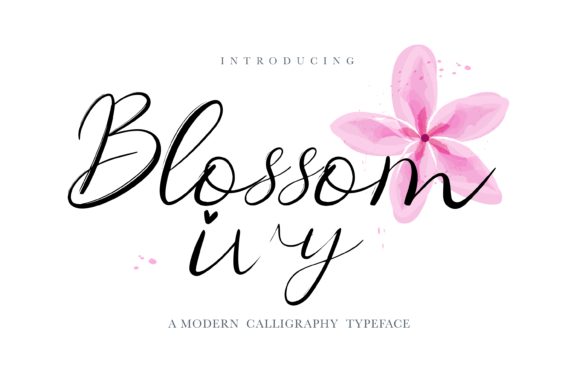
Introducing Blossom Ivy Font: A Timeless Handwritten Masterpiece
When it comes to creating visually stunning designs, the right font can make all the difference. In the world of typography, few fonts have managed to capture the essence of elegance and sophistication as beautifully as the Blossom Ivy Font. This lovely and timeless handwritten font has been making waves in the design community, and for good reason. In this article, we’ll take a closer look at what makes Blossom Ivy a top choice for designers and explore its versatility in creating eye-catching logos, branding, and quotes.
What is Blossom Ivy Font?
Blossom Ivy is a carefully crafted handwritten font that exudes a sense of classic charm and sophistication. Each letter has been meticulously designed to possess a unique and beautiful touch, setting it apart from more generic fonts. The result is a font that breathes life into any design, making it perfect for projects that demand a personal and creative flair.
The Many Uses of Blossom Ivy Font
One of the standout features of Blossom Ivy is its incredible versatility. This font is not just limited to one specific use case; rather, it can be employed across a wide range of design projects. Here are some of the most popular applications of Blossom Ivy:
- Logo Design: Create memorable and impactful logos that stand out from the crowd. Blossom Ivy’s unique lettering makes it an excellent choice for crafting distinctive brand identities.
- Branding: Consistency is key in branding, and Blossom Ivy helps ensure that your brand’s message is conveyed with elegance and sophistication. Use it across various platforms to create a cohesive visual identity.
- Quotes and Typography: Add a touch of personality to your quotes and typography projects. Blossom Ivy’s flowing script makes it perfect for creating visually appealing and shareable content.
Design Tips for Using Blossom Ivy Font
To get the most out of Blossom Ivy, here are some design tips to keep in mind:
- Mix and Match: Don’t be afraid to experiment with different sizes, colors, and styles to create visual interest.
- Pair it Wisely: Combine Blossom Ivy with complementary fonts to enhance its beauty and create a harmonious design.
- Play with Colors: Take advantage of Blossom Ivy’s elegant lines and curves by pairing it with a range of colors that match your brand’s aesthetic.
The Benefits of Using Blossom Ivy Font
So, what sets Blossom Ivy apart from other fonts? Here are some benefits that make it a top choice among designers:
- Unique and Memorable: Blossom Ivy’s distinctive lettering ensures that your designs will stand out and be remembered.
- Elegant and Sophisticated: This font exudes a sense of refinement and luxury, making it perfect for high-end brands and designs.
- Versatile: Blossom Ivy can be used across a wide range of design projects, from logos and branding to quotes and typography.
Key Features of Blossom Ivy Font
Here are some key features that make Blossom Ivy a standout font:
- Handwritten Script: Blossom Ivy boasts a beautiful, flowing script that adds a personal touch to any design.
- Unique Lettering: Each letter has been carefully crafted to possess a unique and beautiful touch.
- Timeless Design: Blossom Ivy’s classic design ensures that it will remain relevant for years to come.
In conclusion, Blossom Ivy Font is a timeless handwritten masterpiece that offers a world of creative possibilities. Its unique lettering, elegant design, and versatility make it an excellent choice for designers looking to create eye-catching logos, branding, and quotes. Whether you’re a seasoned designer or just starting out, Blossom Ivy is sure to inspire and elevate your designs to new heights.